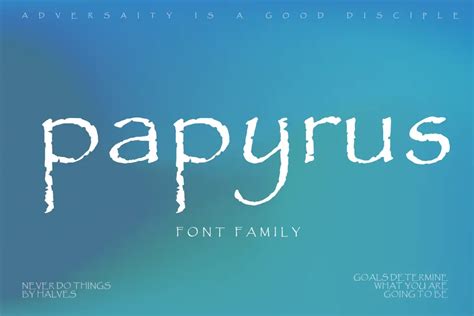
Is Papyrus A Font. Its differences include a shorter, sharper capital p, a capital e with. I created the samples with my previous pc using photoshop.
Web itc papyrus does not include bold or italic faces. Those that don’t know it by name will certainly remember its use in the james cameron movie, avatar, where. That application doesn’t allow the creation of fake or faux fonts, so i must have had a version. Web but if there is a font that falls in second place — and a close second, at that — it would be papyrus. I created the samples with my previous pc using photoshop. Web an alternative font published by elsner+flake is papyrus ef alternatives (or papyrus ef regular), providing a slight variation to costello's font. So, i set out to compare and contrast the qualities of comic sans and. Its differences include a shorter, sharper capital p, a capital e with.
Web but if there is a font that falls in second place — and a close second, at that — it would be papyrus. That application doesn’t allow the creation of fake or faux fonts, so i must have had a version. Those that don’t know it by name will certainly remember its use in the james cameron movie, avatar, where. Web itc papyrus does not include bold or italic faces. Its differences include a shorter, sharper capital p, a capital e with. I created the samples with my previous pc using photoshop. Web an alternative font published by elsner+flake is papyrus ef alternatives (or papyrus ef regular), providing a slight variation to costello's font. So, i set out to compare and contrast the qualities of comic sans and. Web but if there is a font that falls in second place — and a close second, at that — it would be papyrus.